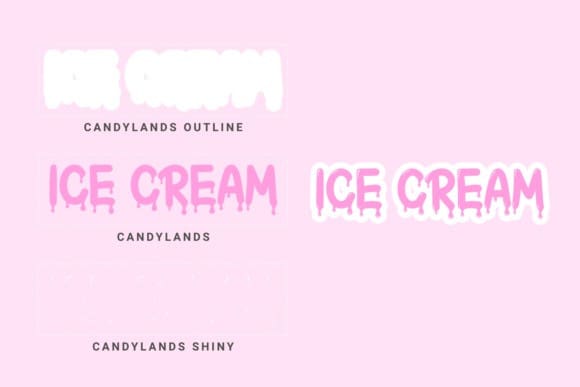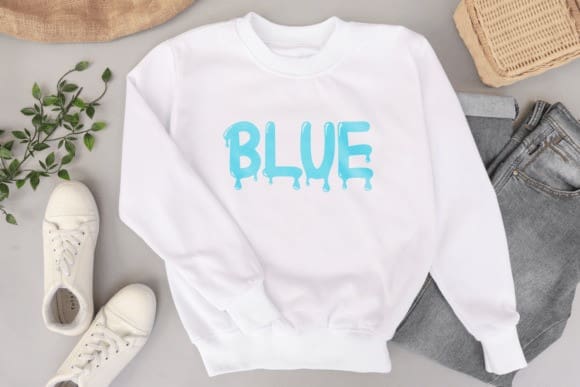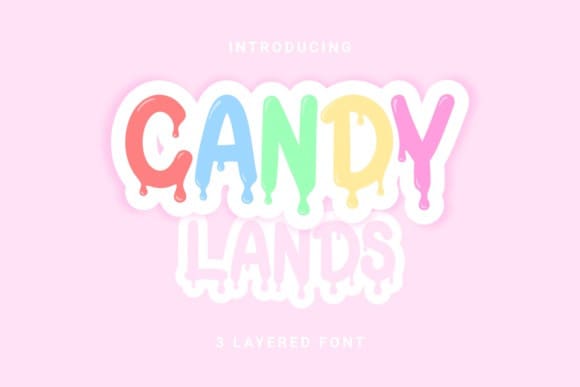
Candy Lands Font
Candy Lands Font is a sweet and friendly display font. Whether you use it for cartoon-related designs, children’s games, or just any creation that requires a lovely touch, this font will be an amazing choice.